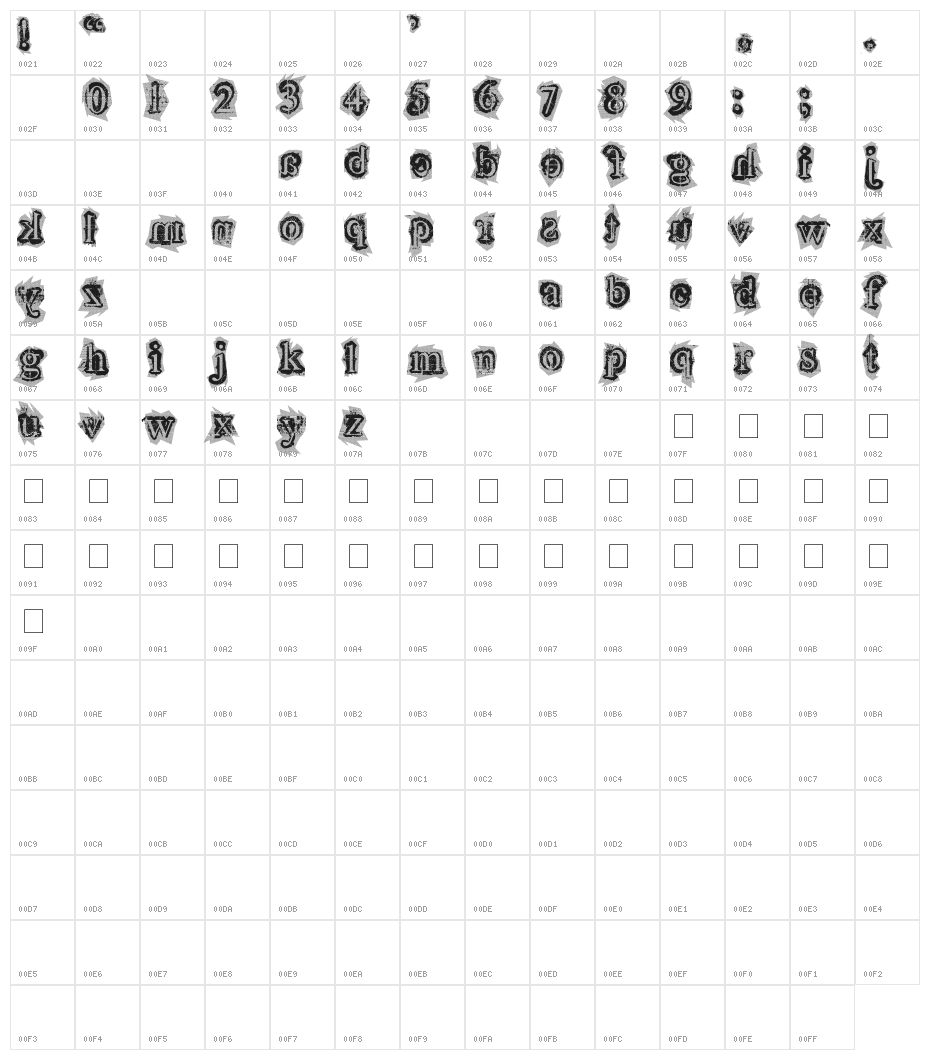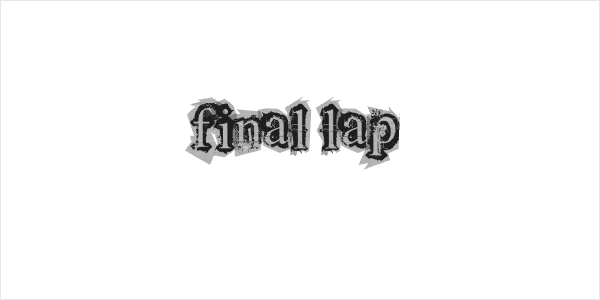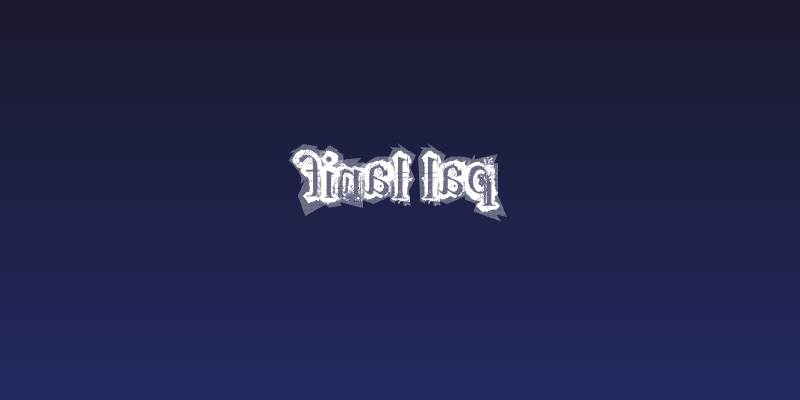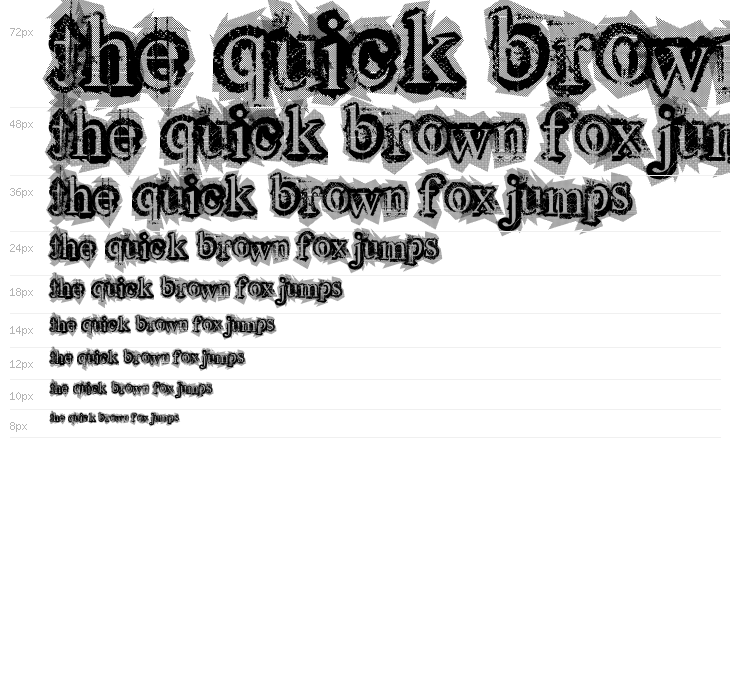
final lap Font
final lap Description
This font features a bold and distressed style, characterized by its textured appearance and heavy outlines. The letters have a vintage, grunge aesthetic, with a unique combination of thick and thin strokes that create a high contrast. The uppercase and lowercase letters maintain a consistent style, with angular serifs and a slightly condensed form. The numbers and special characters follow the same design principles, making them cohesive with the alphabet. This font's rugged and edgy look makes it stand out, ideal for projects that require a bold statement.
| Overall Style | Vintage, Grunge |
| Proposed Projects | Ideal for poster designs, album covers, branding for edgy products, or any project seeking a vintage, grunge look. |